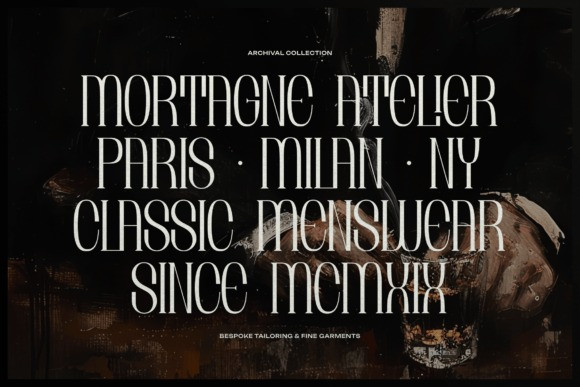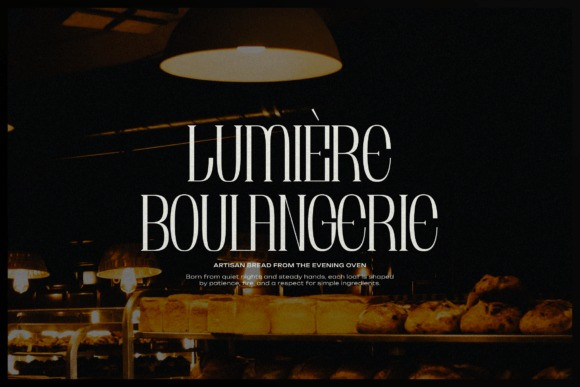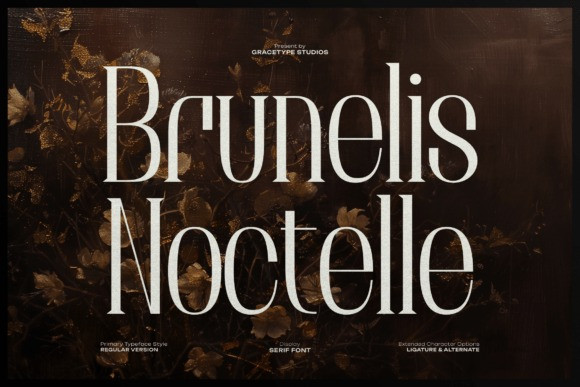
Brunelis Noctelle Font
Brunelis Noctelle Font is a sophisticated display serif font that embodies a perfect blend of classical elegance and contemporary minimalism. Defined by its exceptionally tall x-height and high-contrast strokes, this typeface commands attention with a refined, architectural grace.
The clean, sharp serifs and elongated vertical structure make it a premier choice for high-end editorial layouts, luxury fashion branding, boutique logos, and cinematic titles. Whether you are designing for a premium lifestyle brand or an upscale event, Brunelis Noctelle brings a timeless, high-fashion aesthetic to every headline.